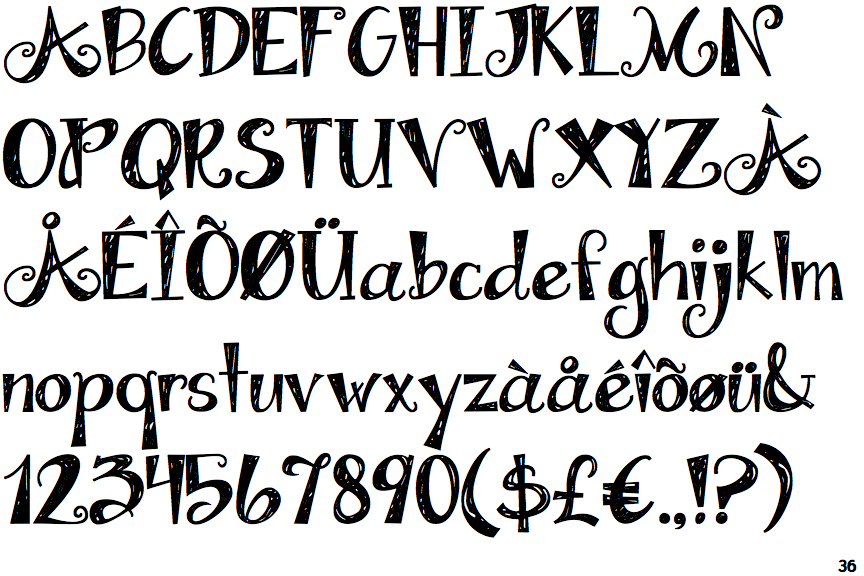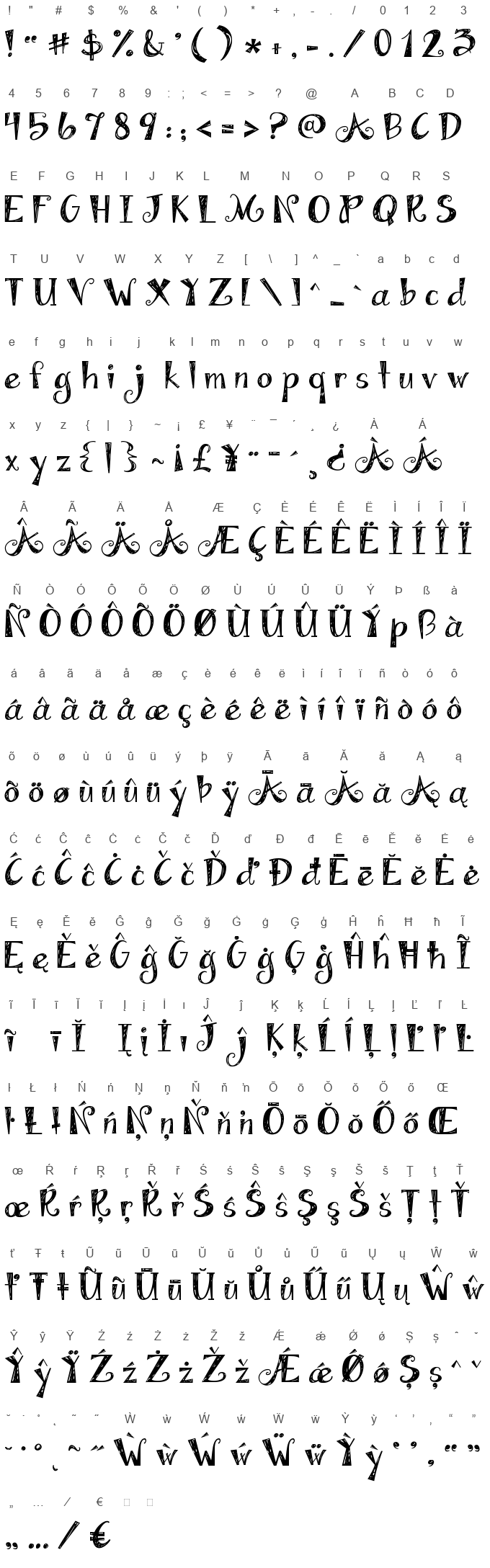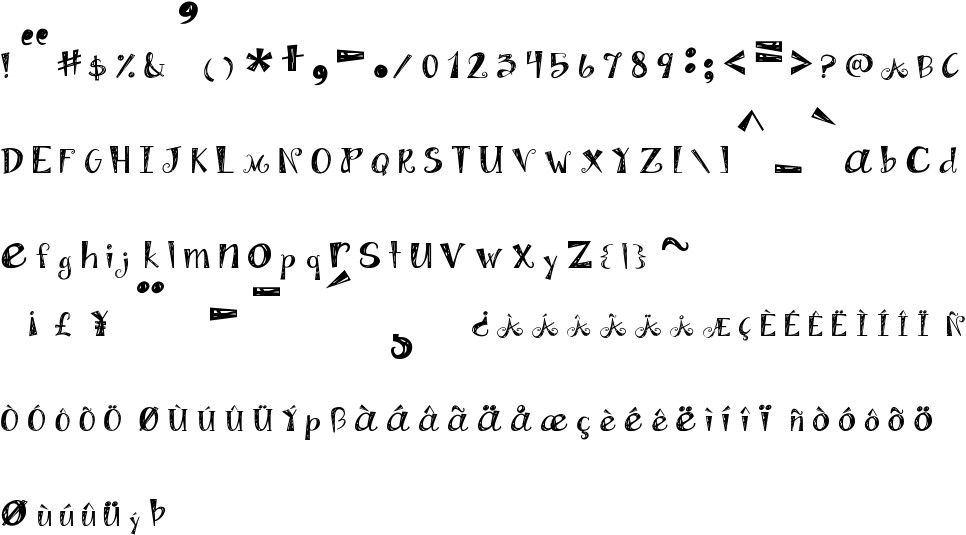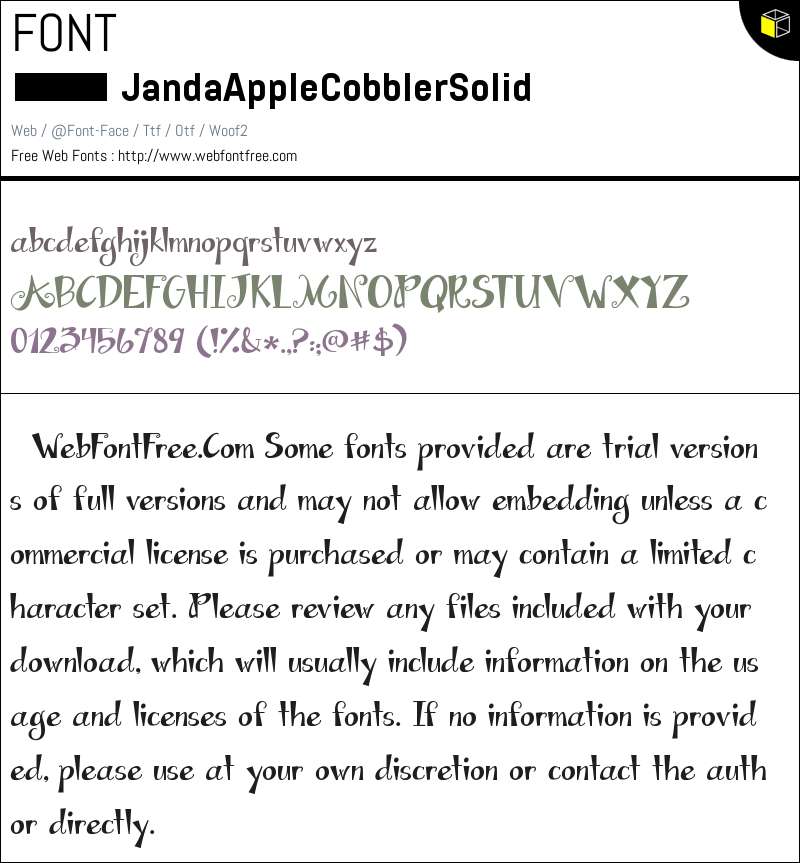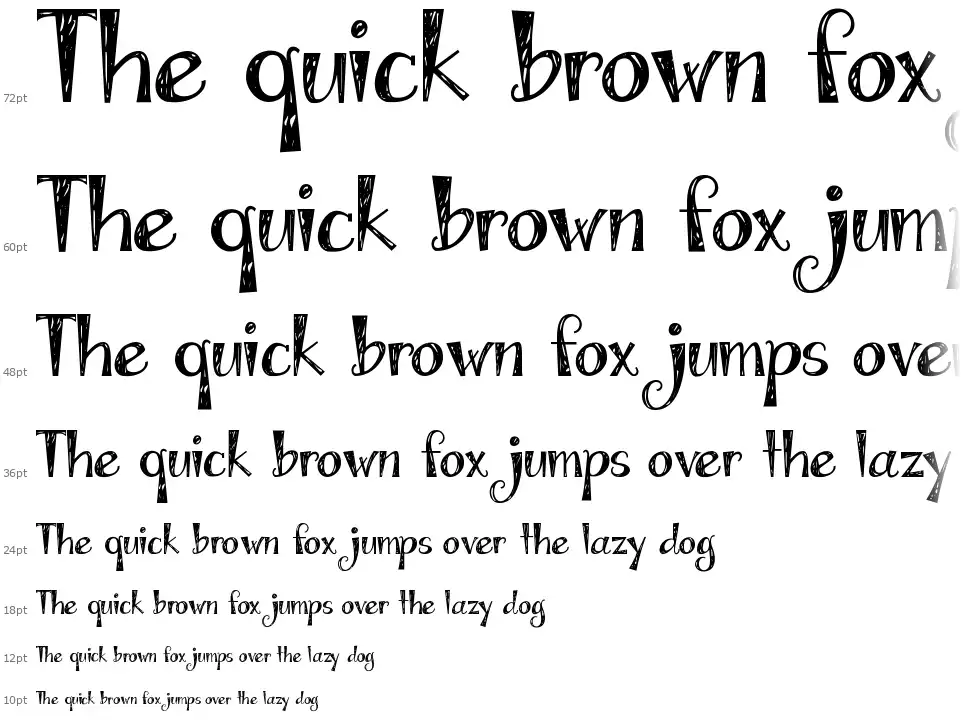
Janda Apple Cobbler Font . Download and install the janda apple cobbler font by kimberly geswein. Free download of janda apple cobbler font family with 2 styles. The janda apple cobbler font has been downloaded. Released in 2012 by kimberly geswein and licensed. It is for personal use only. About janda apple cobbler font family. Janda apple cobbler à € by kimberly geswein. Janda apple cobbler font | designed by kimberly geswein | download janda apple cobbler for windows and mac | category: A sketched freestyle handwriting with curls, chunks, and skinny bits. 8 matching requests on the forum. Janda apple cobbler is a handwritten sketch and solid font family, created by kimberly geswein in 2013. Janda apple cobbler font | dafont.com. The end result is as organic, natural, and inviting as grandma's apple cobbler. This font will add a cottagecore or farmhouse feeling to any design it’s used in. Download janda apple cobbler font family · free for personal use · this font was created by kimberly geswein.
Janda Apple Cobbler Font The janda apple cobbler font has been downloaded. Janda apple cobbler font | dafont.com. Free download of janda apple cobbler font family with 2 styles. The janda apple cobbler font has been downloaded. It is for personal use only. A sketched freestyle handwriting with curls, chunks, and skinny bits. About janda apple cobbler font family. Released in 2012 by kimberly geswein and licensed. This font will add a cottagecore or farmhouse feeling to any design it’s used in. Janda apple cobbler à € by kimberly geswein. Download janda apple cobbler font family · free for personal use · this font was created by kimberly geswein. Janda apple cobbler is a handwritten sketch and solid font family, created by kimberly geswein in 2013. The end result is as organic, natural, and inviting as grandma's apple cobbler. Download and install the janda apple cobbler font by kimberly geswein. Janda apple cobbler font | designed by kimberly geswein | download janda apple cobbler for windows and mac | category: 8 matching requests on the forum.
Janda Apple Cobbler font Font Tr Janda Apple Cobbler Font Janda apple cobbler font | dafont.com. The janda apple cobbler font has been downloaded. A sketched freestyle handwriting with curls, chunks, and skinny bits. It is for personal use only. Download and install the janda apple cobbler font by kimberly geswein. Janda apple cobbler is a handwritten sketch and solid font family, created by kimberly geswein in 2013. Free download. Janda Apple Cobbler Font.
Janda Apple Cobbler free font Janda Apple Cobbler Font Download and install the janda apple cobbler font by kimberly geswein. About janda apple cobbler font family. It is for personal use only. A sketched freestyle handwriting with curls, chunks, and skinny bits. Janda apple cobbler font | designed by kimberly geswein | download janda apple cobbler for windows and mac | category: Free download of janda apple cobbler font. Janda Apple Cobbler Font.
Janda Apple Cobbler Solid Fonts Downloads Janda Apple Cobbler Font Janda apple cobbler font | dafont.com. The janda apple cobbler font has been downloaded. 8 matching requests on the forum. Released in 2012 by kimberly geswein and licensed. The end result is as organic, natural, and inviting as grandma's apple cobbler. It is for personal use only. Free download of janda apple cobbler font family with 2 styles. This font. Janda Apple Cobbler Font.
Janda Apple Cobbler characters Apple Cobbler, Hand Lettering, Fonts Janda Apple Cobbler Font Janda apple cobbler is a handwritten sketch and solid font family, created by kimberly geswein in 2013. Download janda apple cobbler font family · free for personal use · this font was created by kimberly geswein. It is for personal use only. Free download of janda apple cobbler font family with 2 styles. The janda apple cobbler font has been. Janda Apple Cobbler Font.
Janda Apple Cobbler Font Family · 1001 Fonts Janda Apple Cobbler Font Janda apple cobbler font | dafont.com. The janda apple cobbler font has been downloaded. About janda apple cobbler font family. Free download of janda apple cobbler font family with 2 styles. The end result is as organic, natural, and inviting as grandma's apple cobbler. This font will add a cottagecore or farmhouse feeling to any design it’s used in. Janda. Janda Apple Cobbler Font.
Download free Janda Apple Cobbler Regular font JandaAppleCobbler.ttf Janda Apple Cobbler Font Janda apple cobbler is a handwritten sketch and solid font family, created by kimberly geswein in 2013. Janda apple cobbler font | designed by kimberly geswein | download janda apple cobbler for windows and mac | category: Download janda apple cobbler font family · free for personal use · this font was created by kimberly geswein. A sketched freestyle handwriting. Janda Apple Cobbler Font.
janda apple cobbler font Google Search Apple cobbler, Free fonts Janda Apple Cobbler Font This font will add a cottagecore or farmhouse feeling to any design it’s used in. Download and install the janda apple cobbler font by kimberly geswein. It is for personal use only. Janda apple cobbler is a handwritten sketch and solid font family, created by kimberly geswein in 2013. Free download of janda apple cobbler font family with 2 styles.. Janda Apple Cobbler Font.